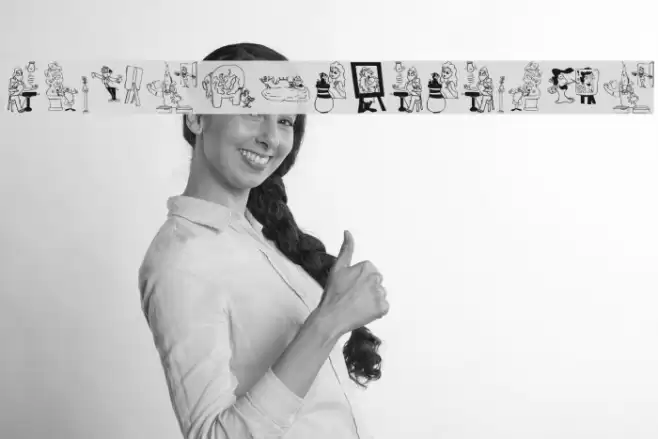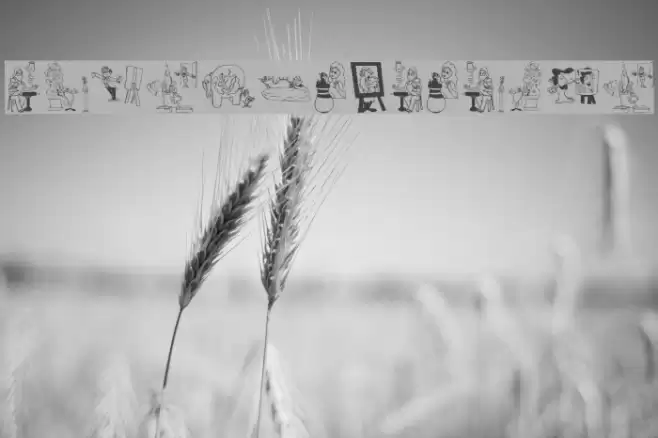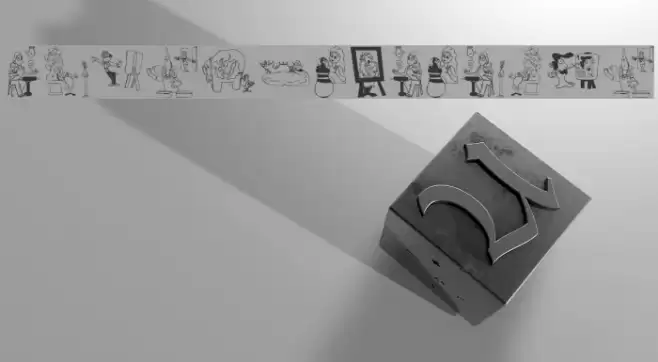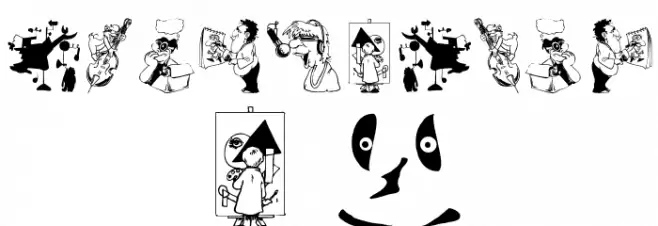
SomeArtistsOne Font
SomeArtistsOne Description
A whimsical, illustrative font composed of playful cartoon characters engaged in artistic activities, each glyph represented by a unique drawing rather than traditional letterforms.
Cartoonish, artist-themed pictorial font with each character as a unique illustration from Uncategorized fonts.
- Proposed Projects: Children’s books, art festival posters, creative branding, playful invitations, educational materials.
- Overall Style: Whimsical, Playful, Artistic
- Use Case: Logos, Posters, Headlines, Themed Events